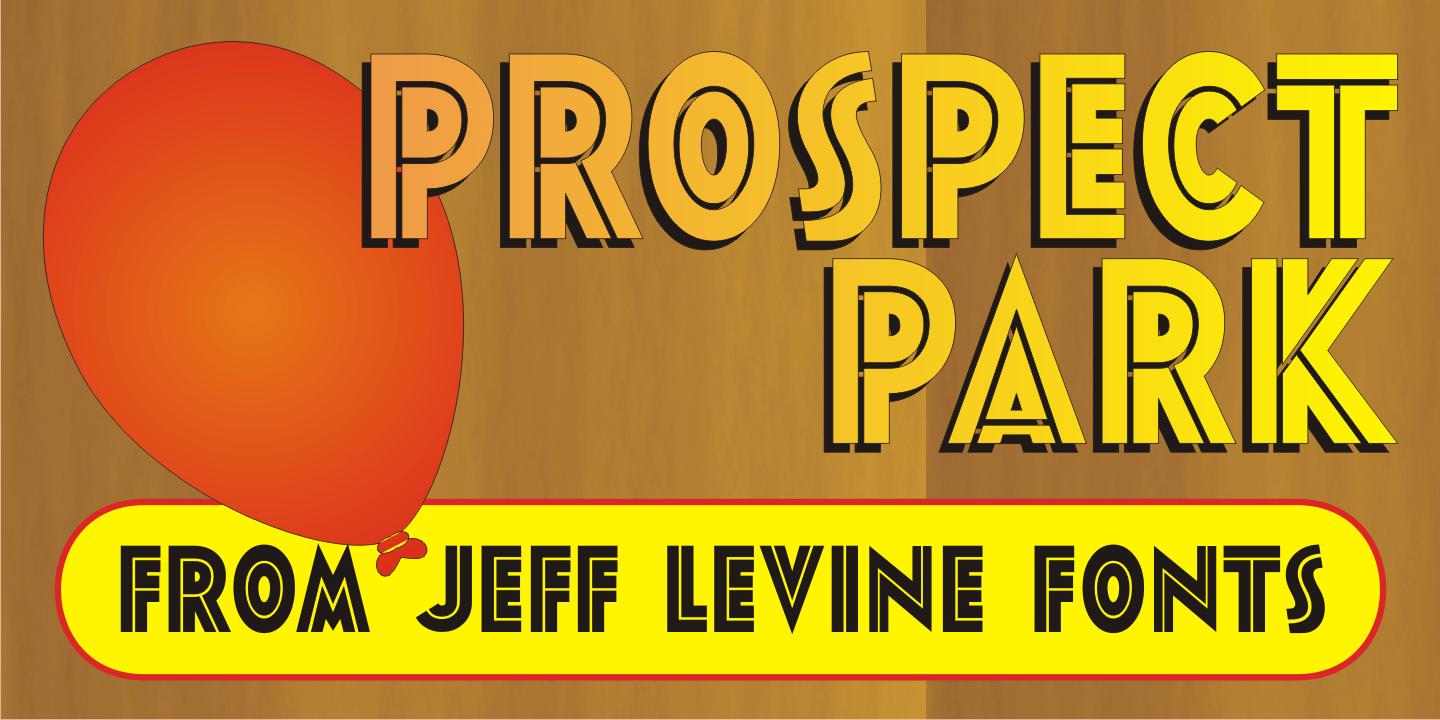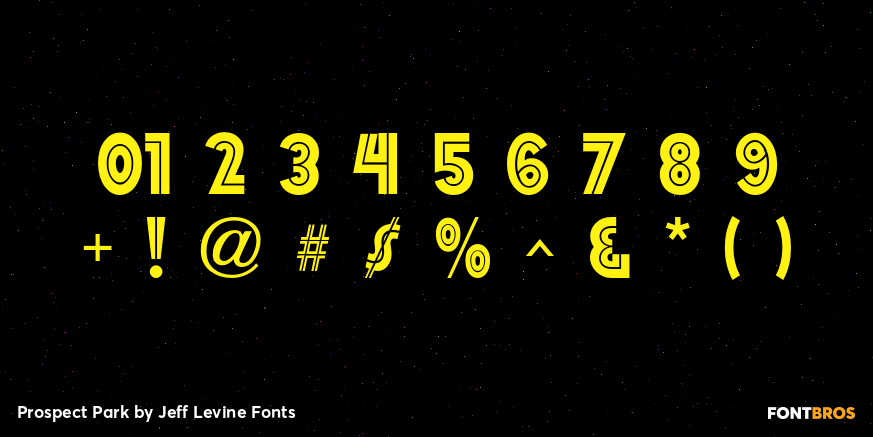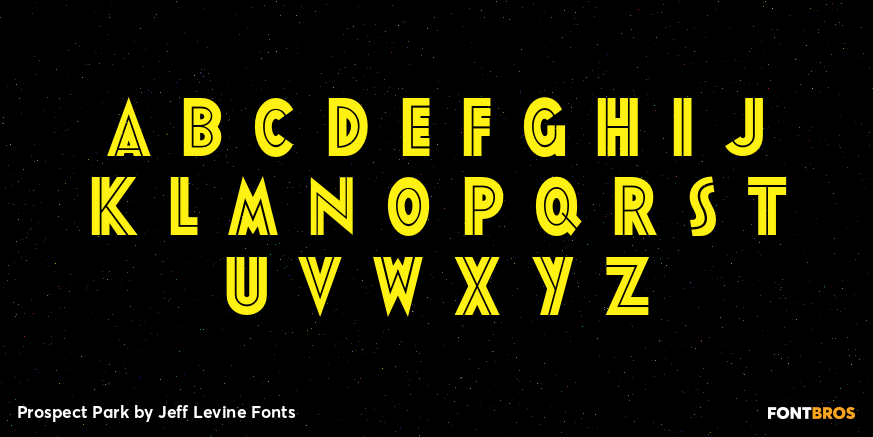
Prospect Park
Prospect Park JNL was inspired by inline lettering found on some vintage sheet music from the Art Deco era entitled 'By My Side'.
The font's namesake is located in the Crown Heights section of Brooklyn, NY. Prospect Park is famous for its zoo as well as its tree lined paths, historic carousel and the expansive park area.